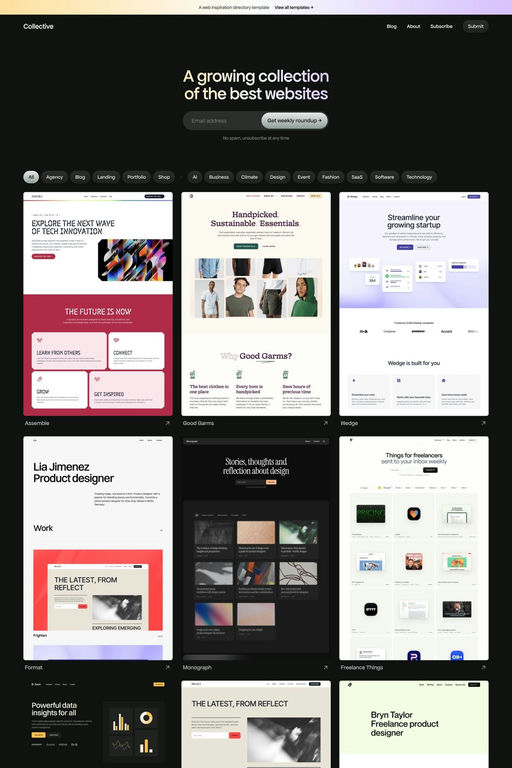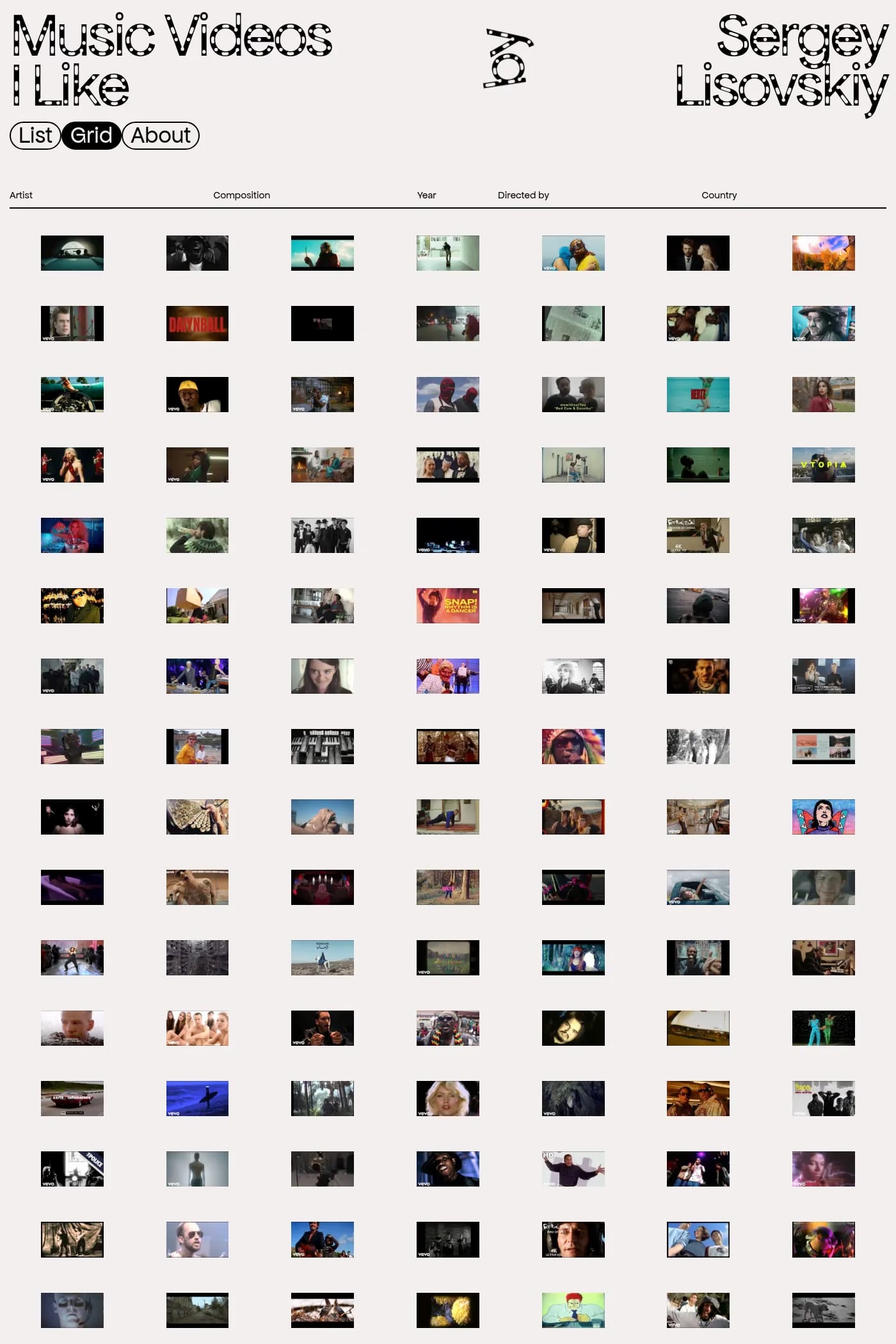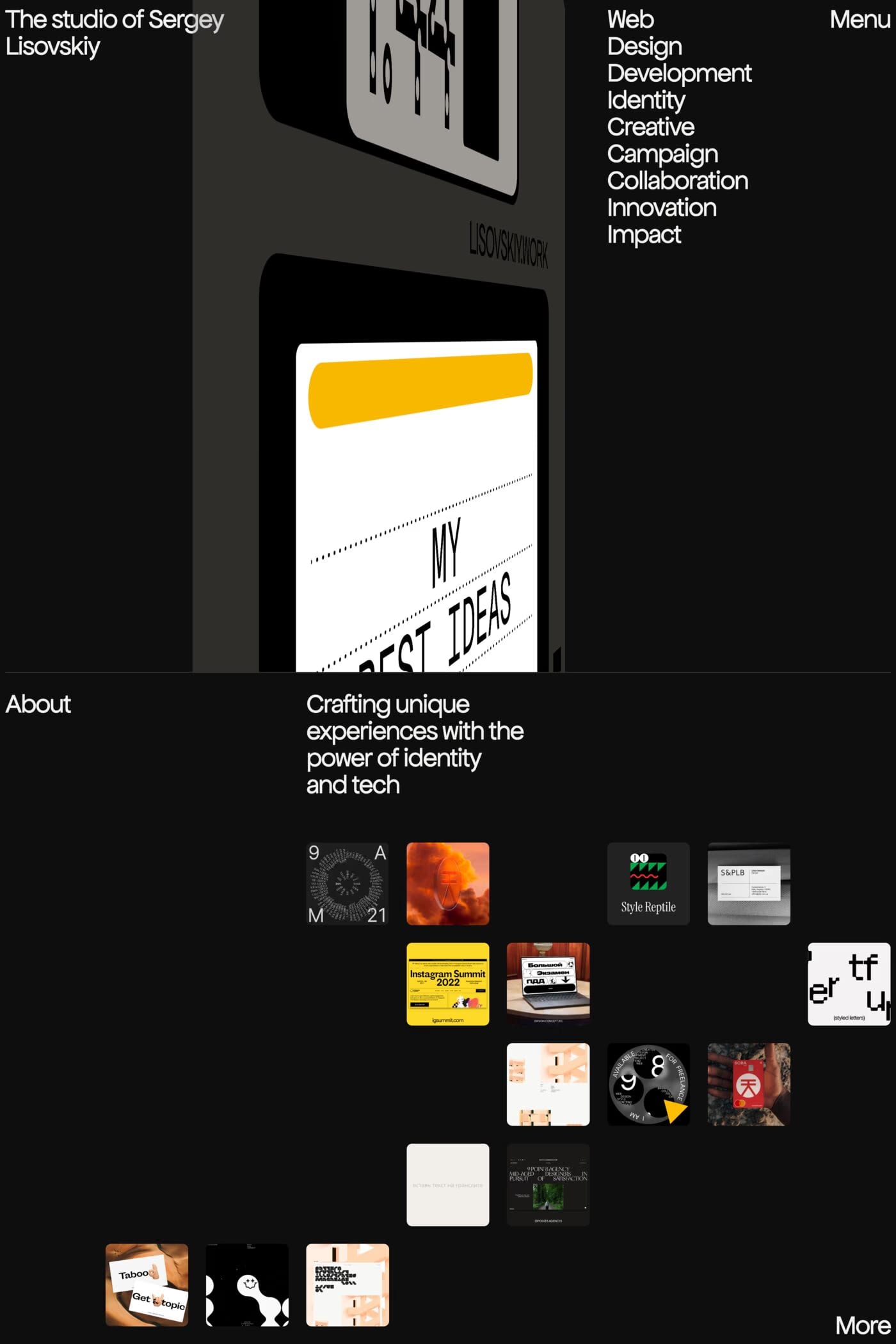
Apfel Grotezk is a sans-serif typeface from Collletttivo.
Apfel Grotezk is a round and airy sans serif family, inspired by neo-grotesque and geometric typefaces. It features easy curves and an exaggerated x-height, granting it a very friendly attitude. Its lower-carbon-footprint twin, Apfel Grotezk Brukt (developed in collaboration with SPRINT) was designed to reduce the amount of ink used in printing through cut-outs of varying shapes and sizes.
A1 features 3 websites using Apfel Grotezk, including Music Videos I Like, Sergey Lisovskiy, and Collective. They lean towards Sans-serif, Big type, and Grid design styles, and they’re most often built with SvelteKit and Framer.